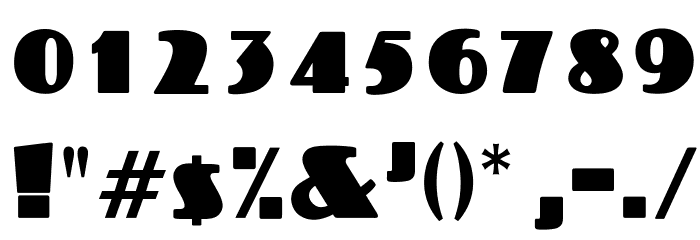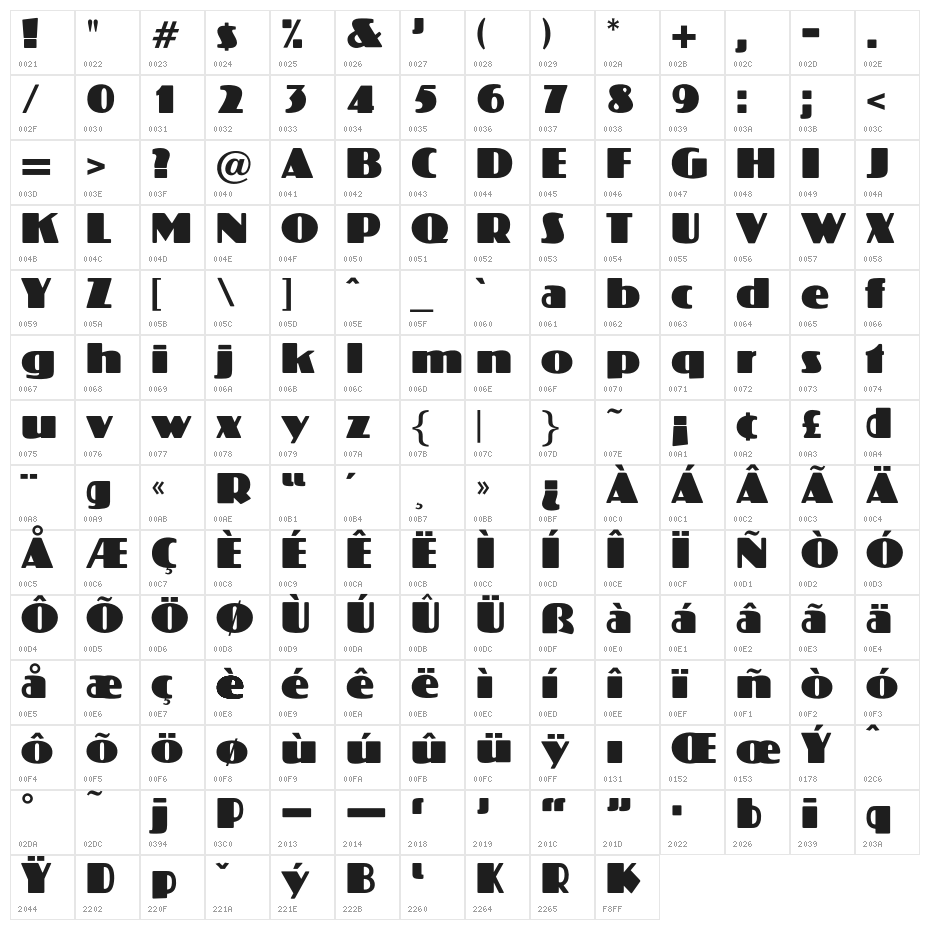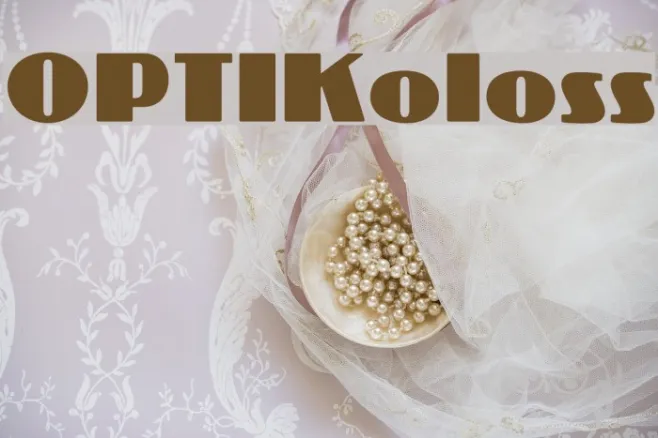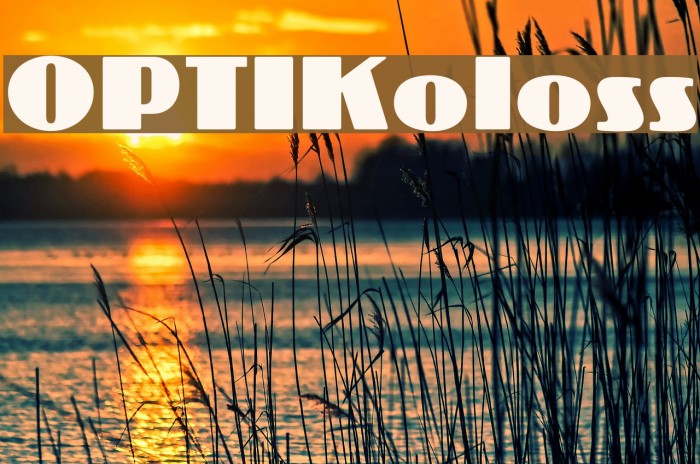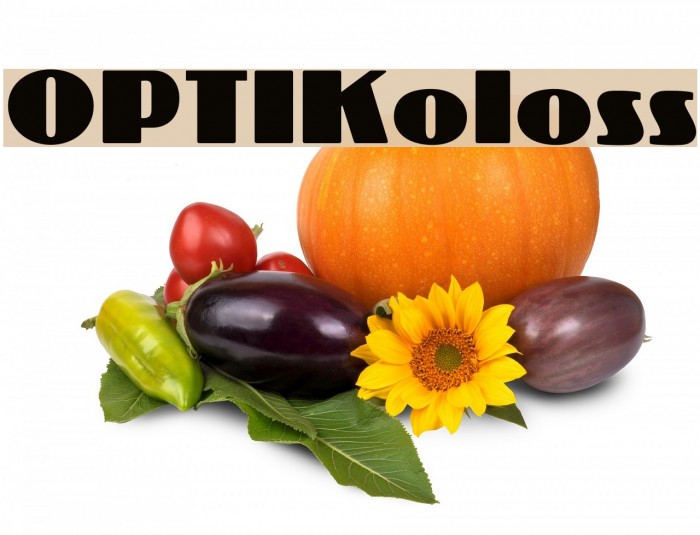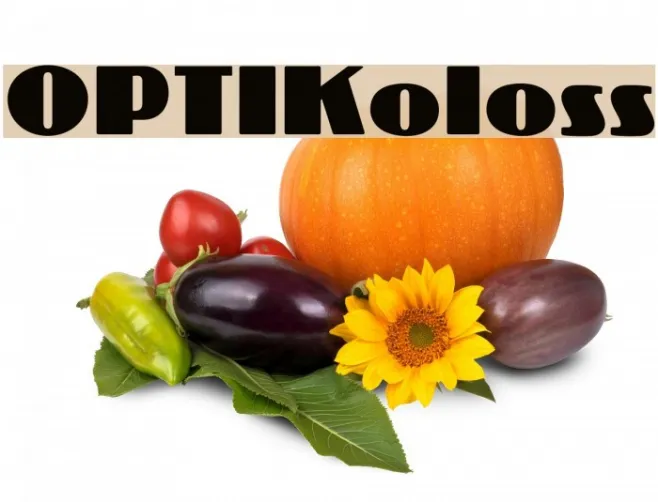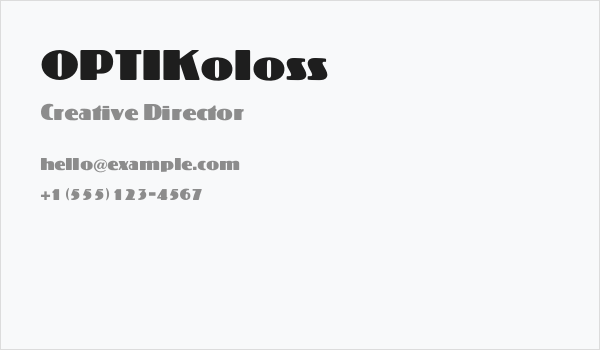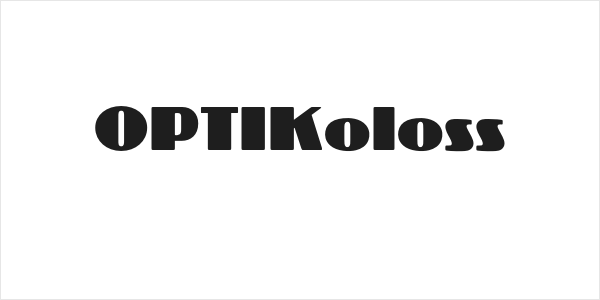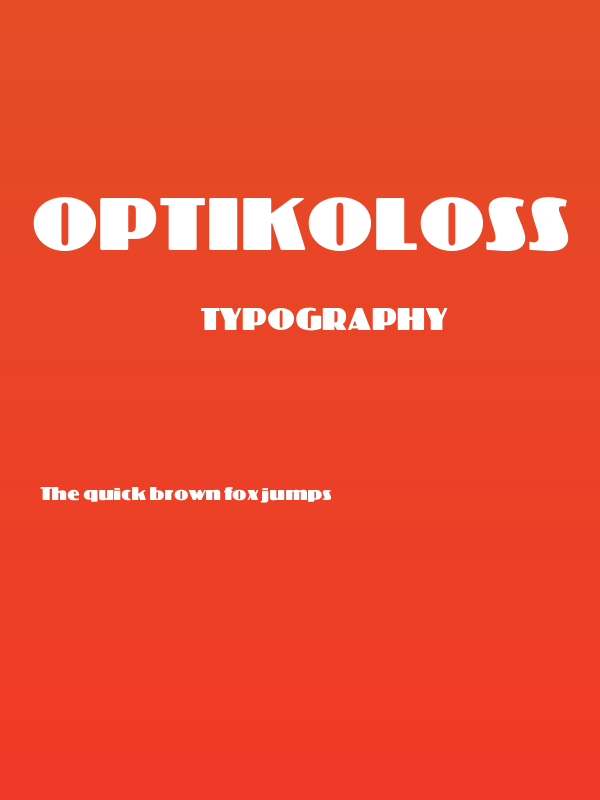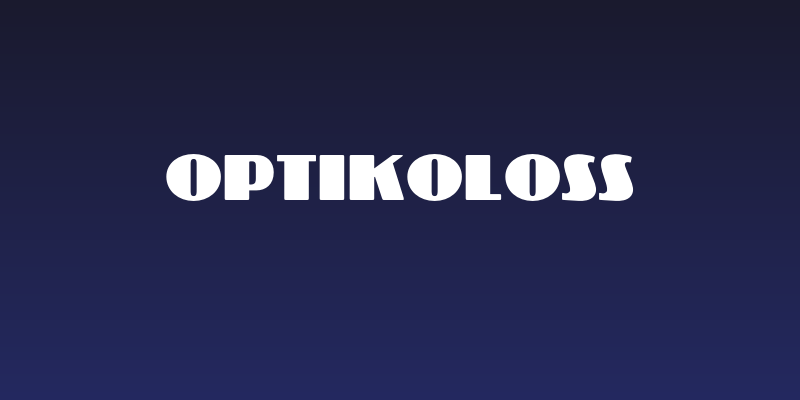
OPTIKoloss Font
OPTIKoloss Description
This font features bold, geometric letterforms with a strong presence. The uppercase letters are particularly wide and imposing, while the lowercase letters maintain a consistent weight and style. The numbers are equally bold, ensuring readability and impact. Special characters are designed to match the overall boldness and geometric style of the font. The font's design is modern and assertive, making it suitable for projects that require a strong visual statement.
| Proposed Projects | Ideal for headlines, posters, branding, and any project requiring a strong visual impact. |